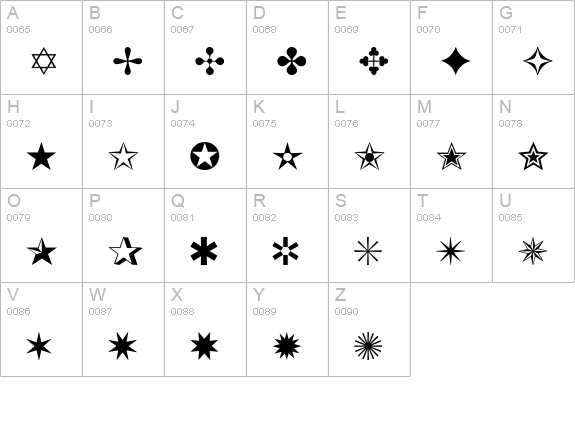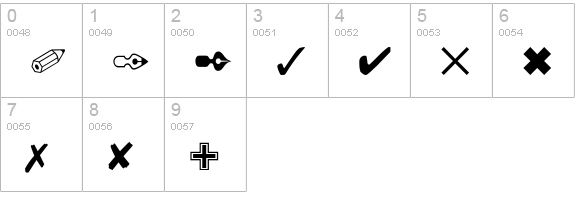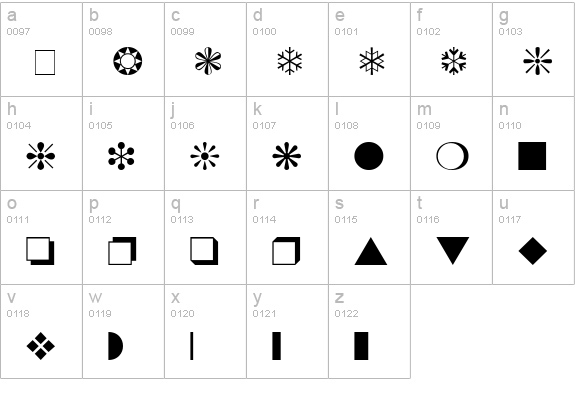
Dingthings 4 N font is a whimsical and playful typeface that is sure to add a touch of fun to any design project. This unique font features a variety of quirky dingbat characters that can be used to enhance your creative projects. Perfect for adding a touch of personality to invitations, posters, and more, Dingthings 4 N font is a versatile choice for any designer looking to make a statement. Best of all, Dingthings 4 N font is available for free download at FontsMarket.com. So whether you're a seasoned designer or just starting out, you can easily access this charming font and start incorporating its delightful characters into your work. Don't miss out on the opportunity to elevate your designs with Dingthings 4 N font - download it for free today!